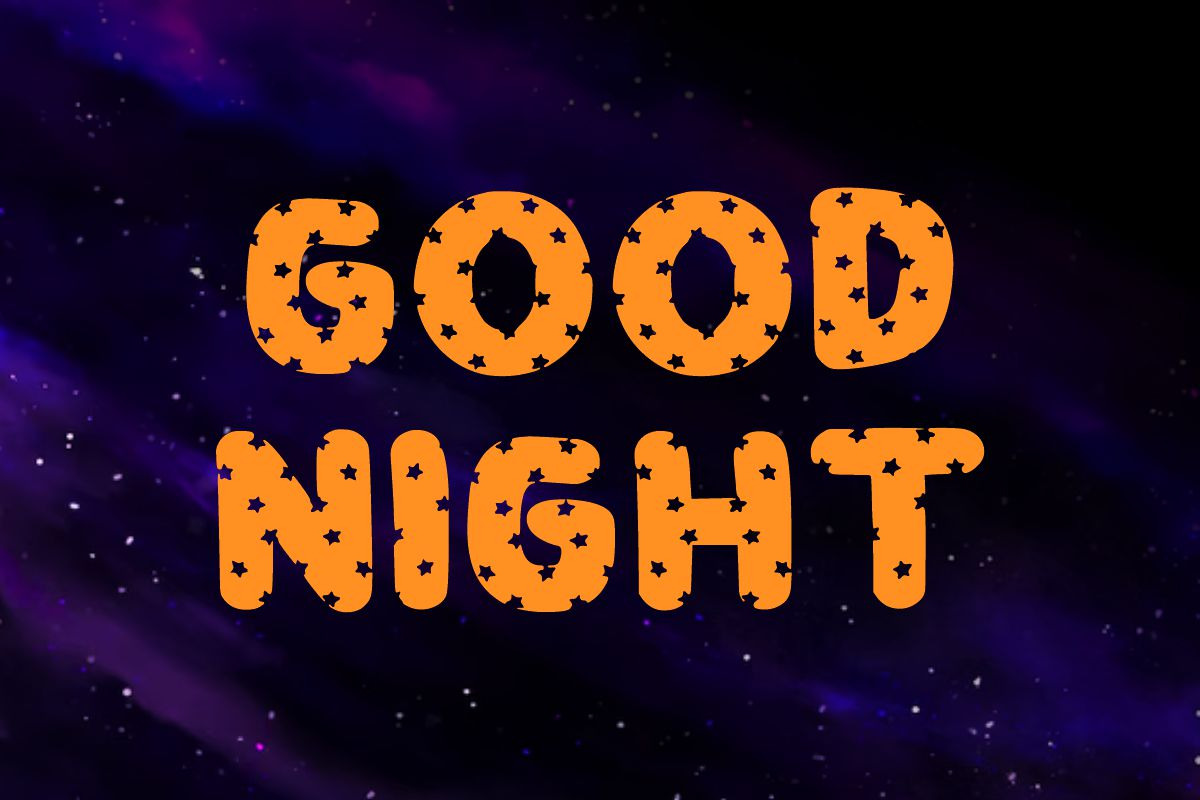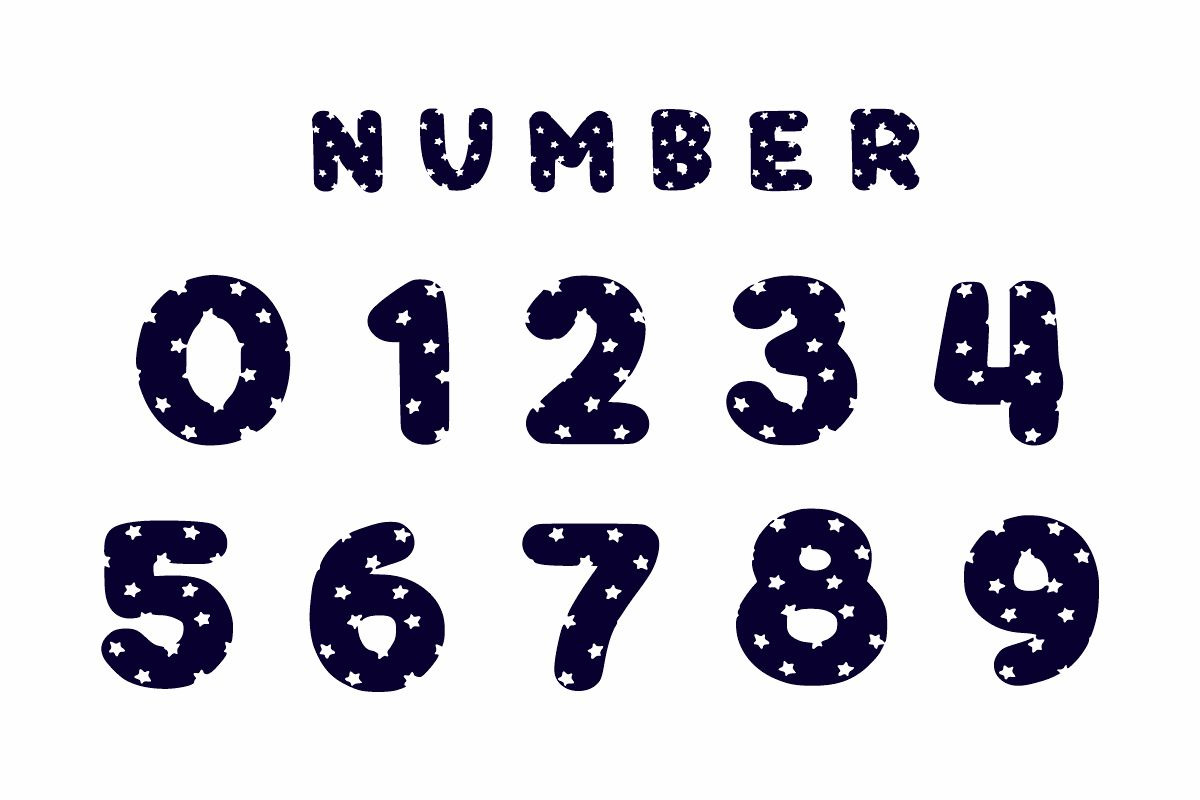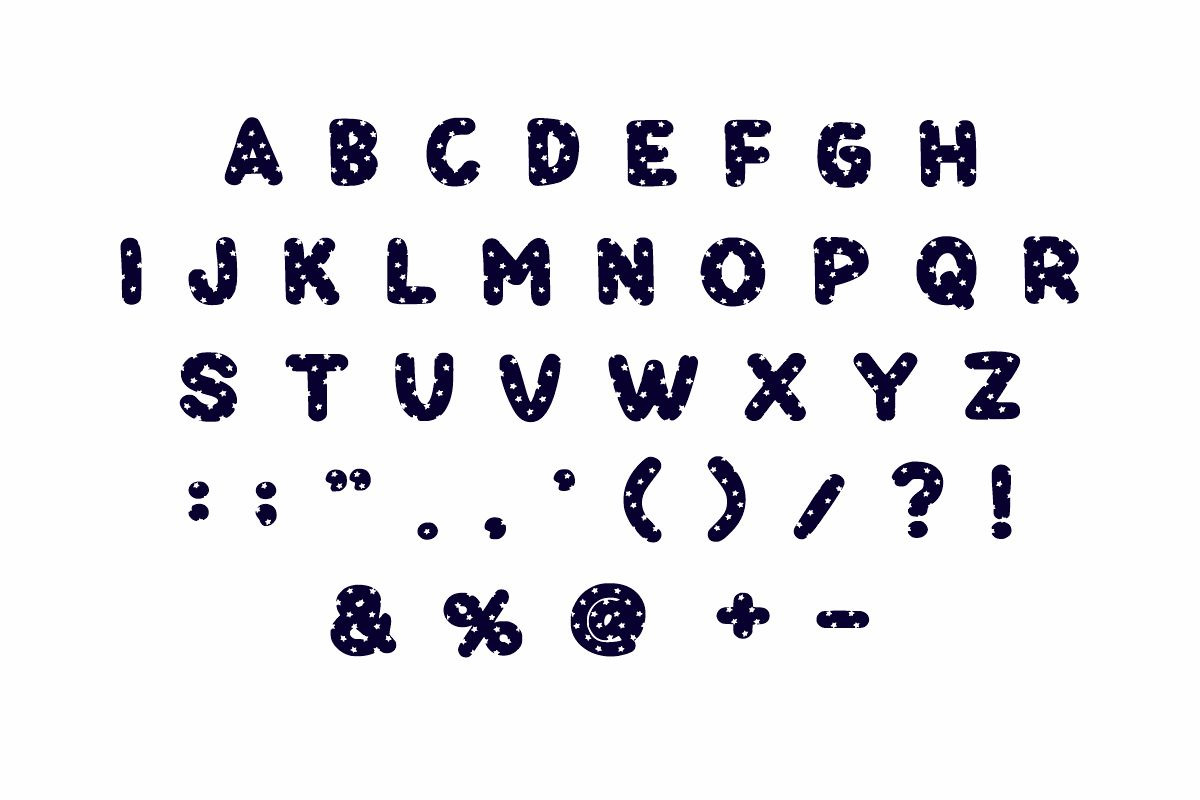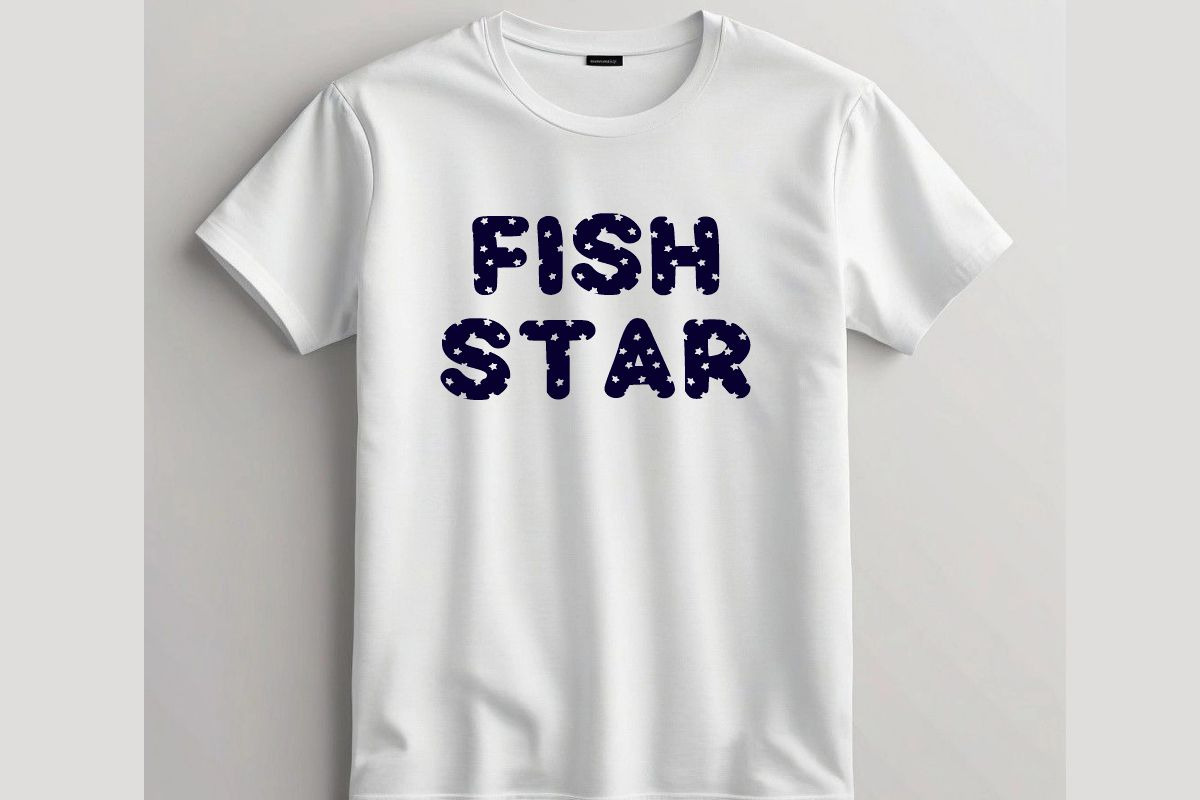
Star Moon
Star Moon was inspired by playful, bouncy, bold, yet childish vibes. Whether you’re using it for crafts, digital designs, presentations, or making greeting cards, this font has the potential to become your favorite go-to font, no matter the occasion!